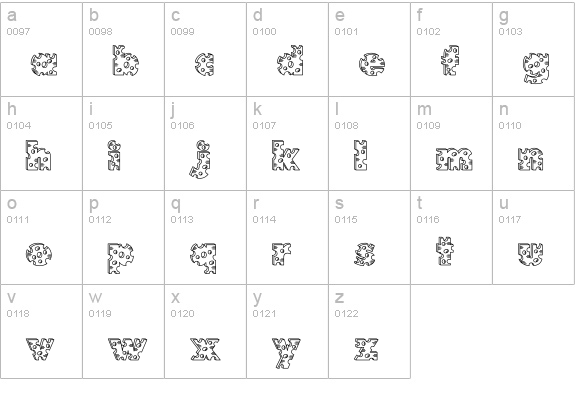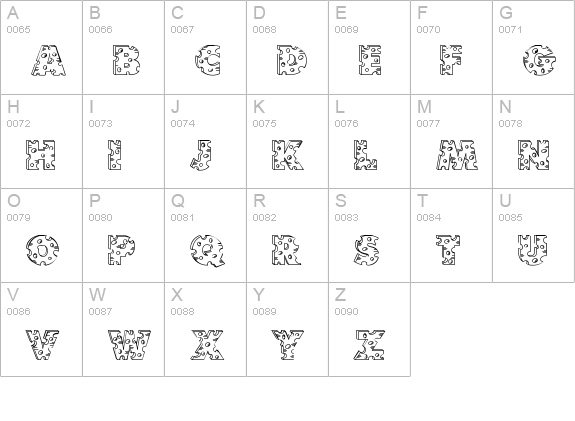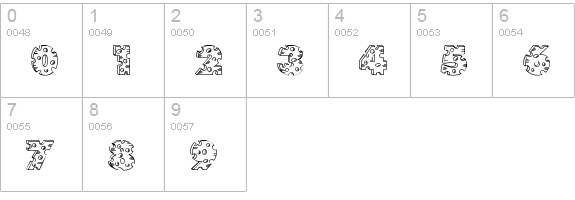
Accent Swiss Cheese font is a unique and playful typeface that brings a touch of whimsy and charm to any design project. With its quirky, irregular shapes and holes reminiscent of real Swiss cheese, this font is sure to stand out and make a statement. Perfect for food-related designs, invitations, and anything that calls for a fun and lighthearted touch. The best part is that Accent Swiss Cheese font is completely free to download at FontsMarket.com. Simply head over to the website and grab this delightful font to add a touch of creativity to your next project. Don't miss out on this fantastic opportunity to elevate your designs with the playful charm of Accent Swiss Cheese font!